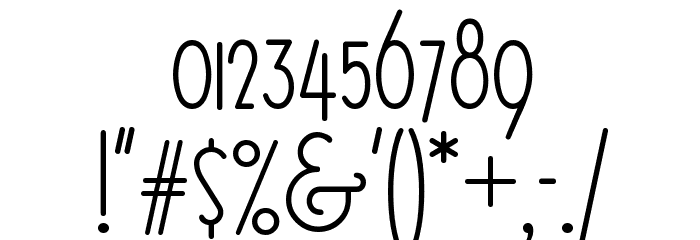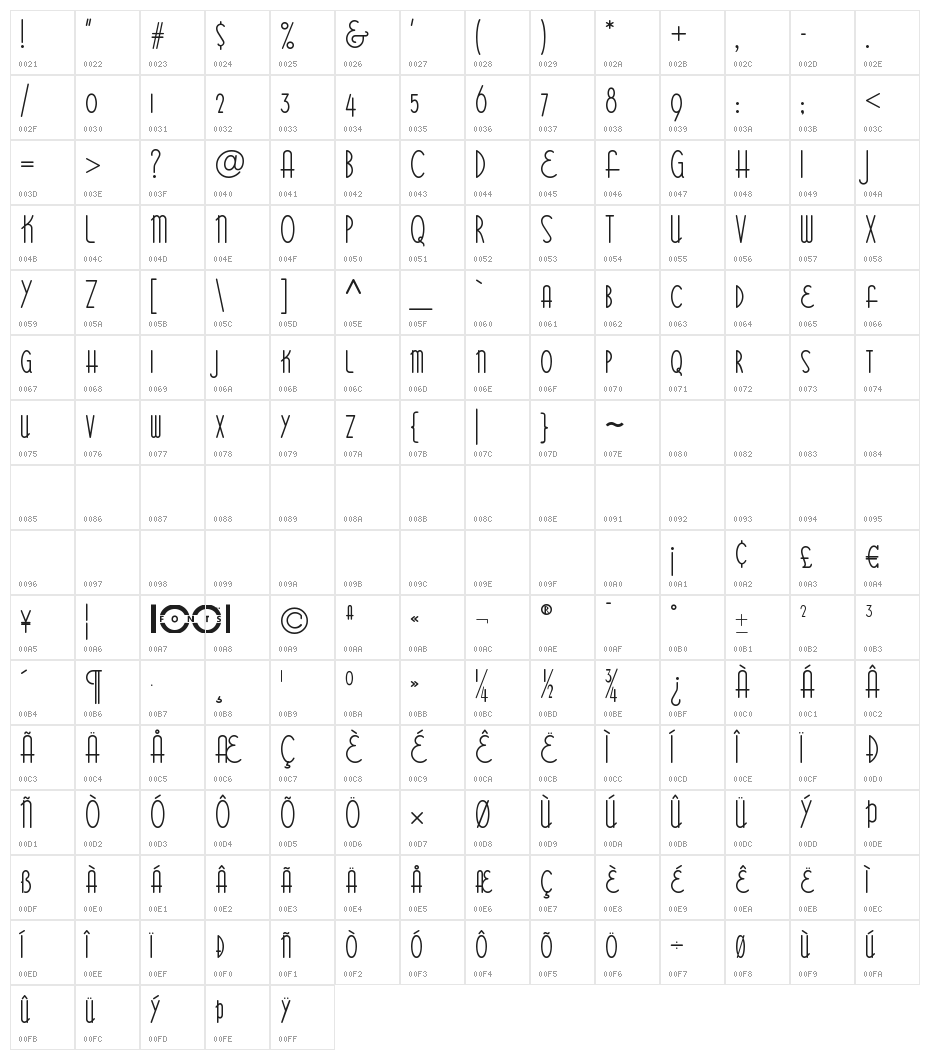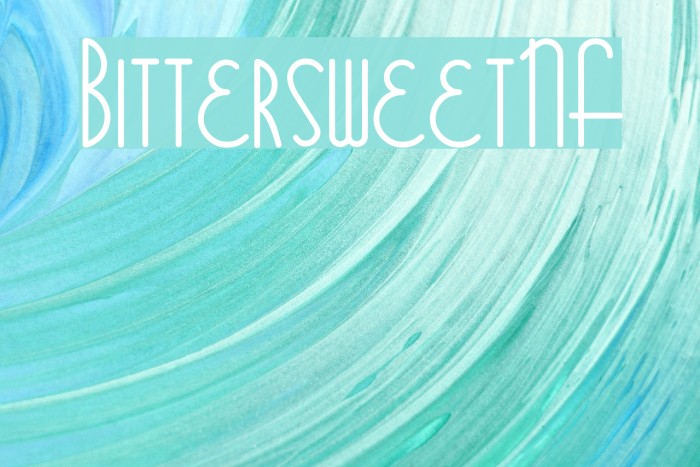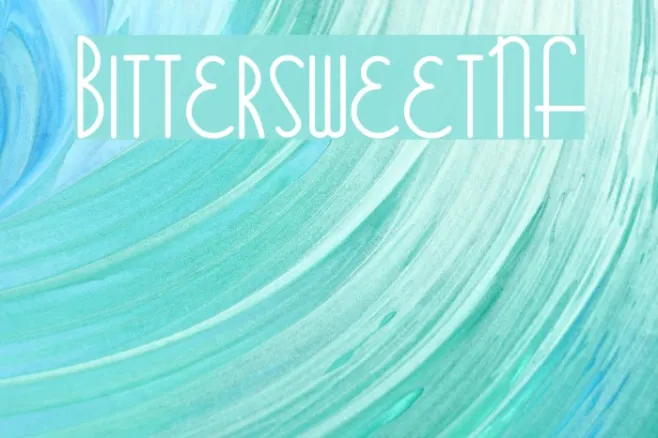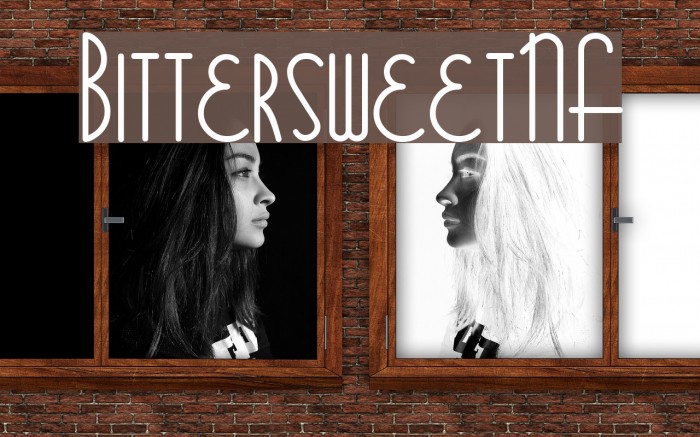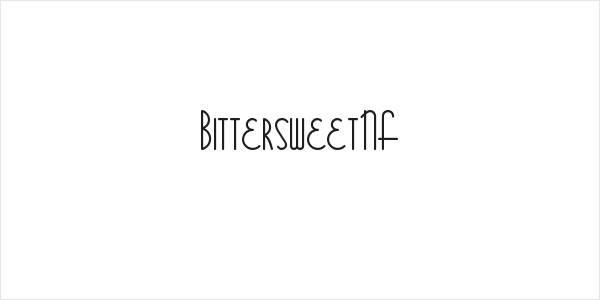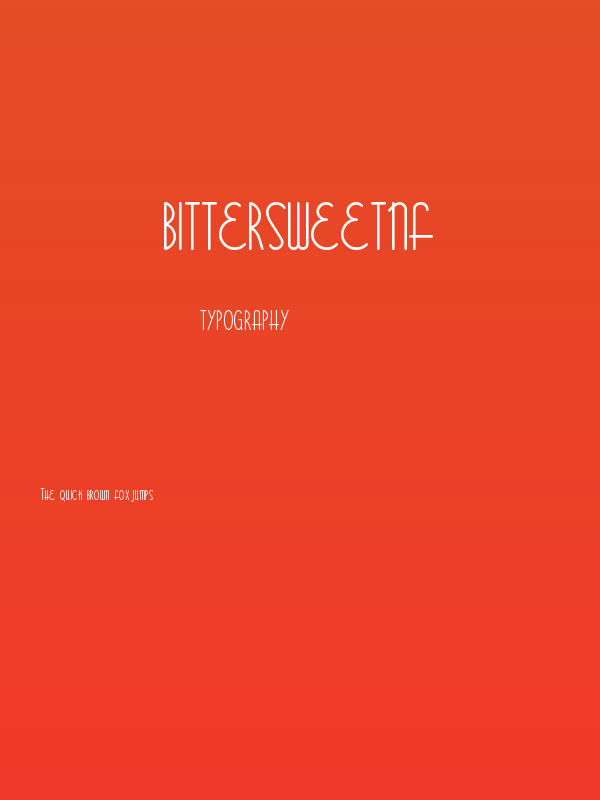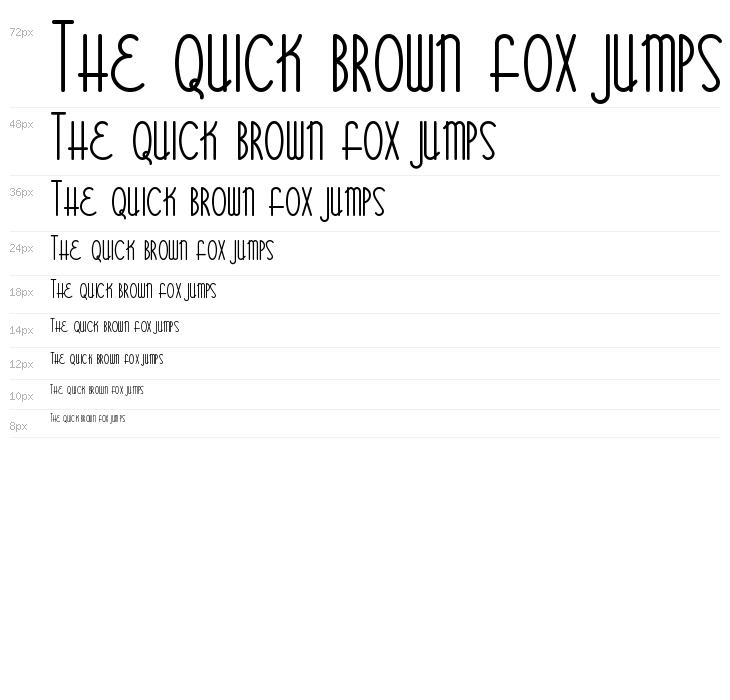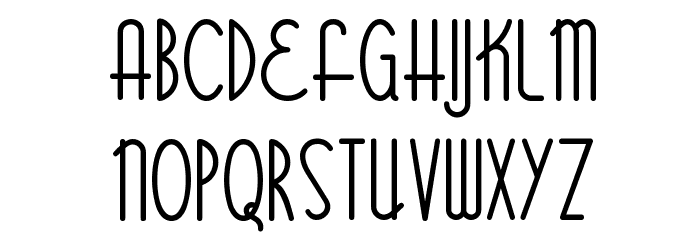
BittersweetNF Font
BittersweetNF Description
This font features a unique blend of modern and vintage styles, characterized by its tall, narrow letterforms and rounded edges. The uppercase and lowercase letters maintain a consistent height, creating a harmonious and balanced appearance. The numerals and special characters are designed with the same attention to detail, ensuring a cohesive look across all elements. The font's clean lines and minimalistic design make it versatile for various applications, while its distinctive style adds a touch of elegance and sophistication.
| Overall Style | Modern Vintage |
| Proposed Projects | Ideal for branding, packaging, invitations, and editorial design projects. |